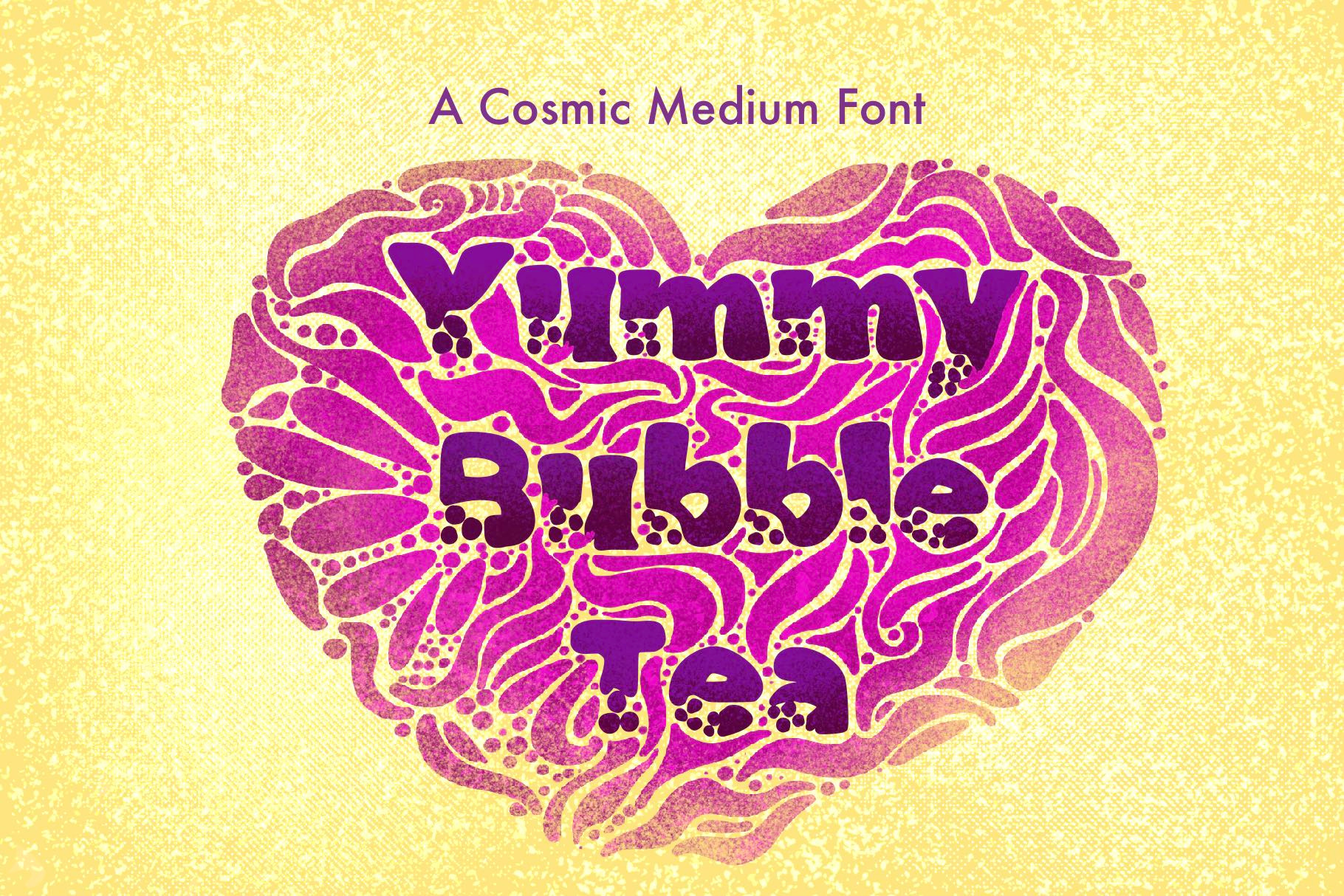
Yummy Bubble Tea Font
Yummy Bubble Tea is a typeface inspired by the taste of sweet tapioca and milk tea. Recommended for your headline such like cook book cover, coloring book, coffee shop ad, poster, t-shirt, mug & another merchandise. Available in uppercase and lowercase. This yummy font that you can combine the uppercase & lowercase to get the yummy bubble tea taste!